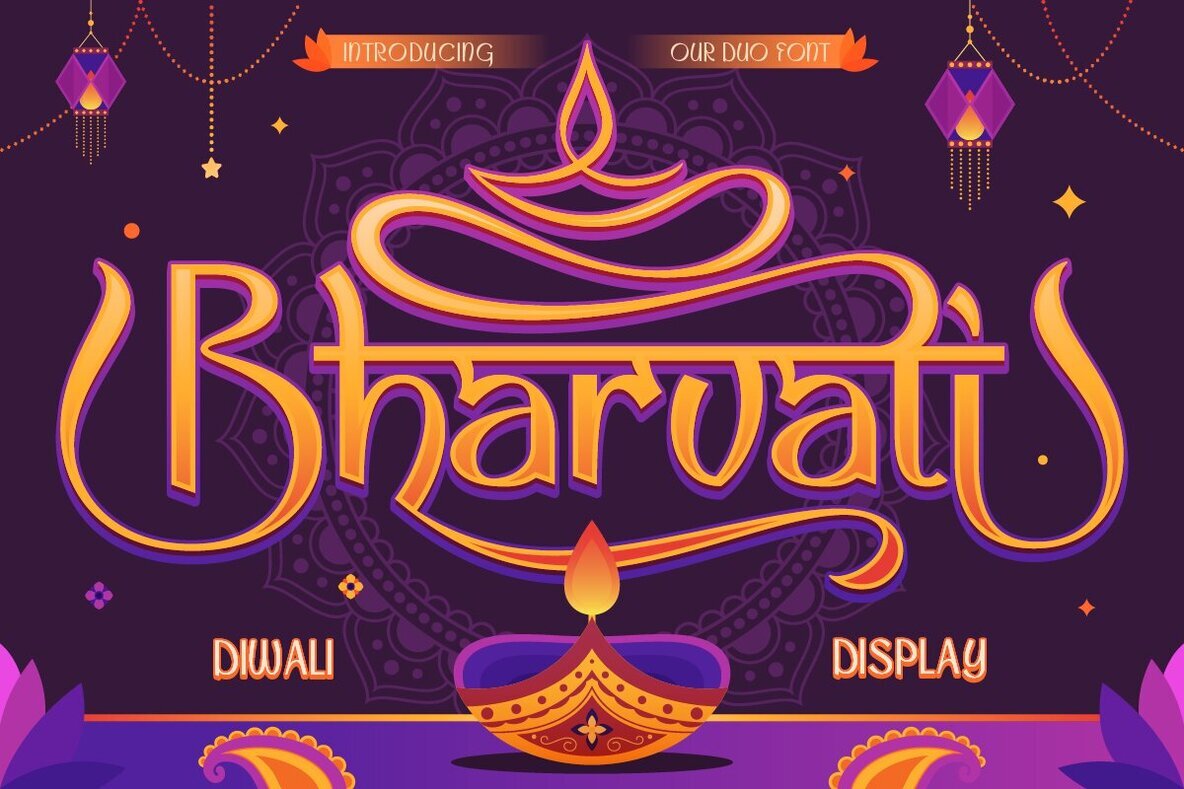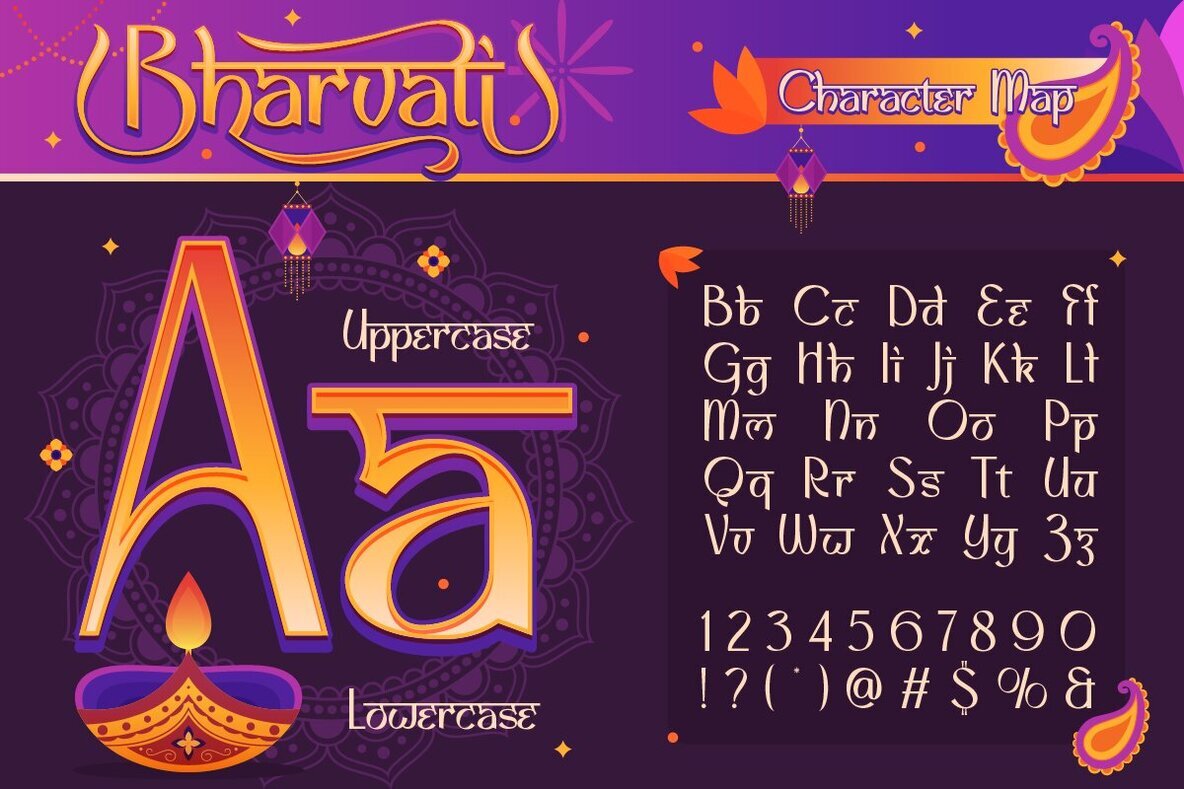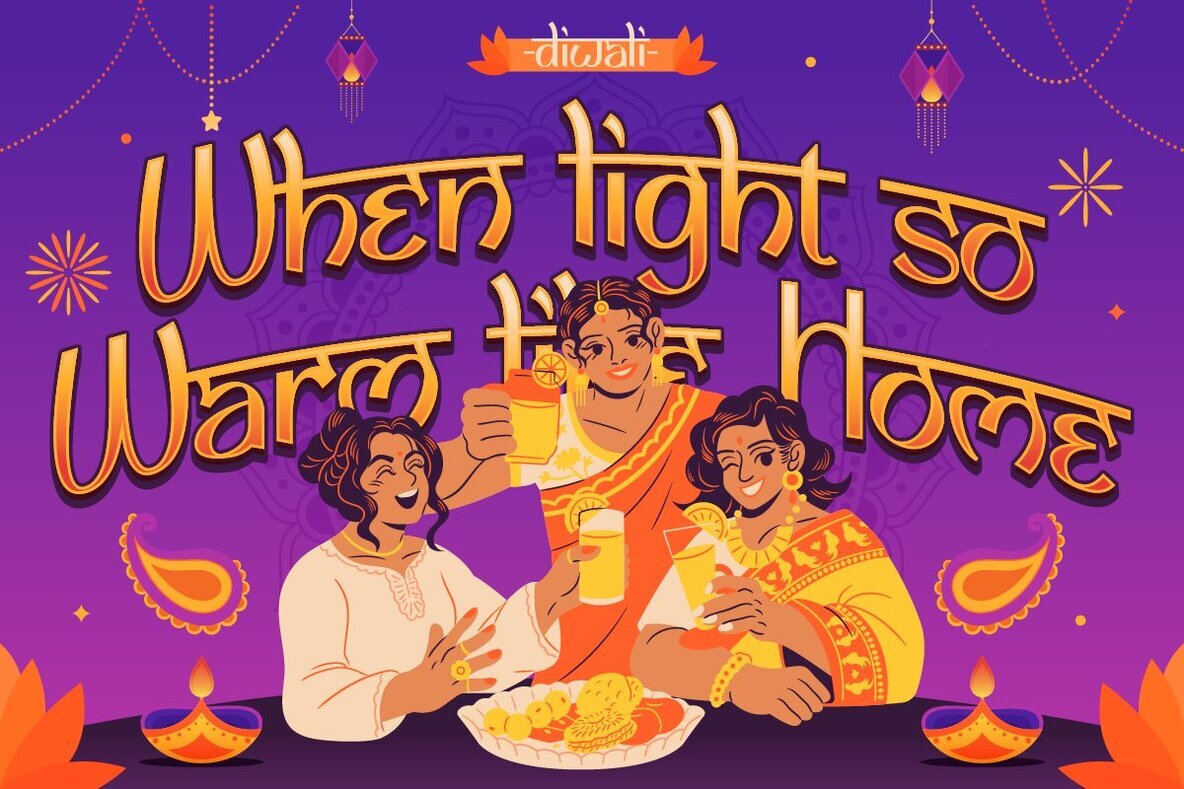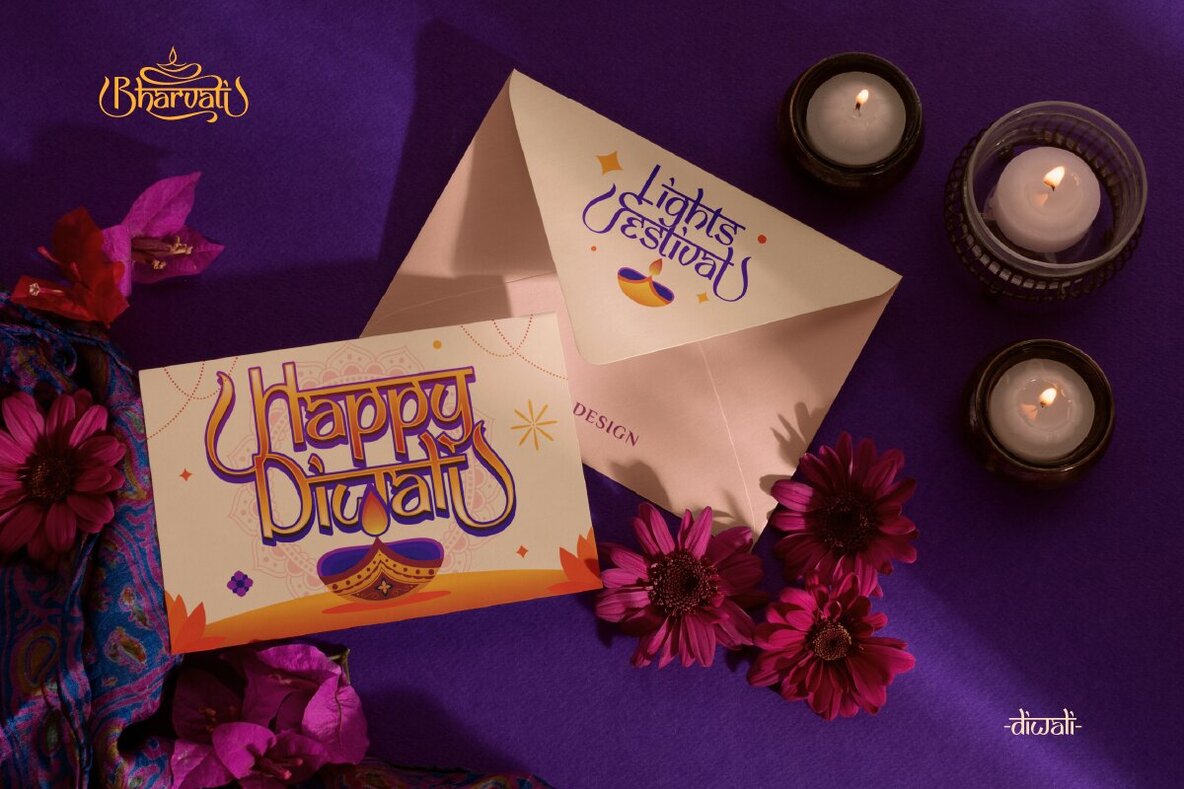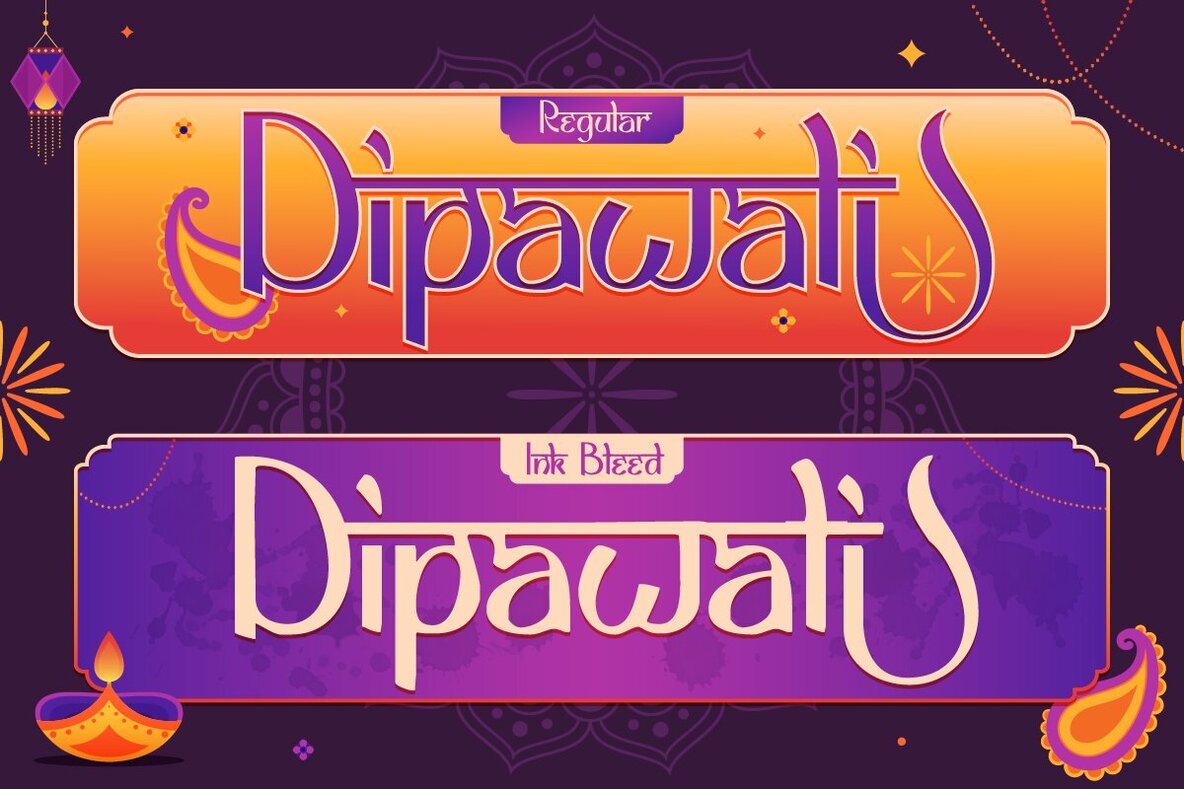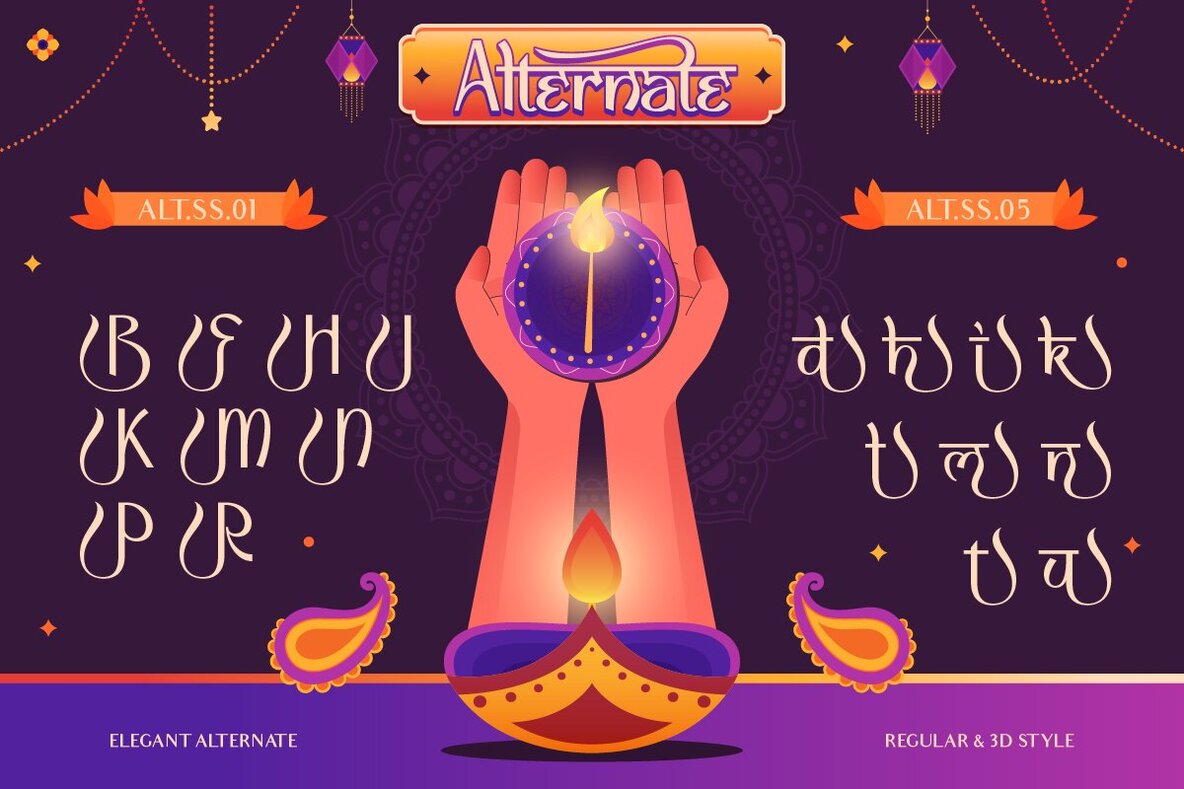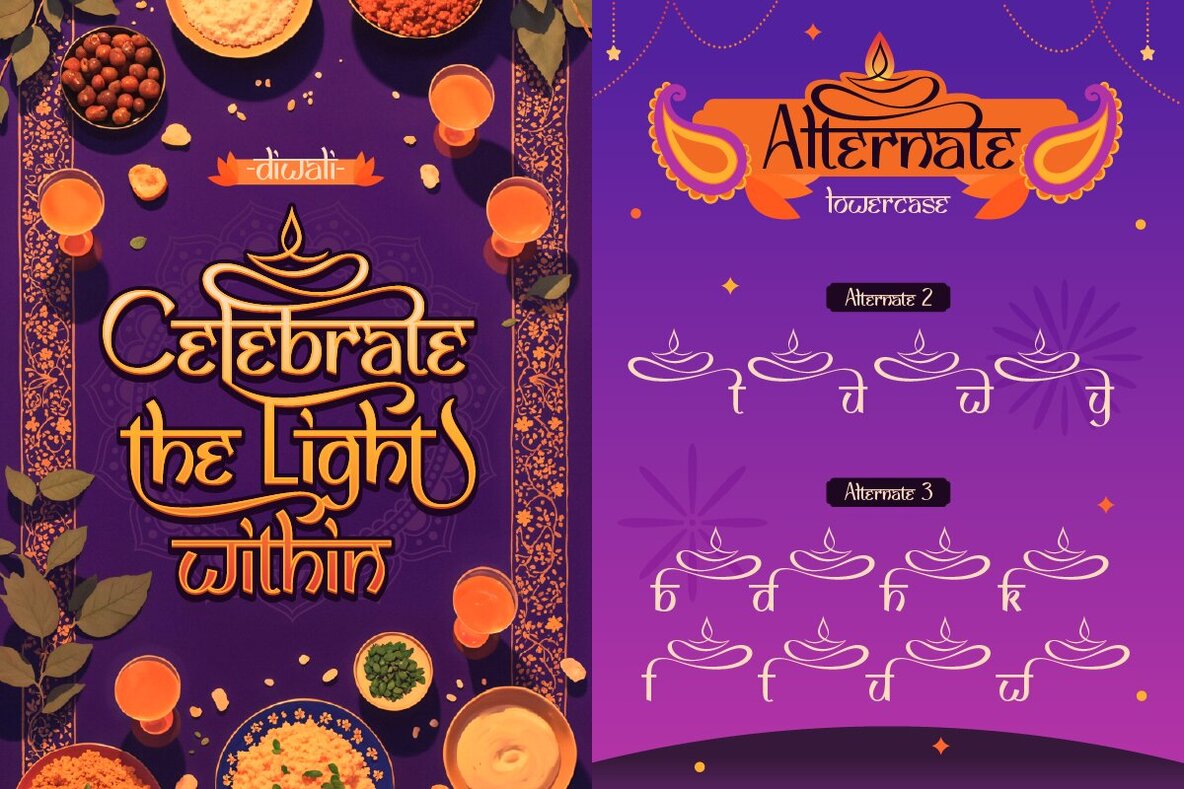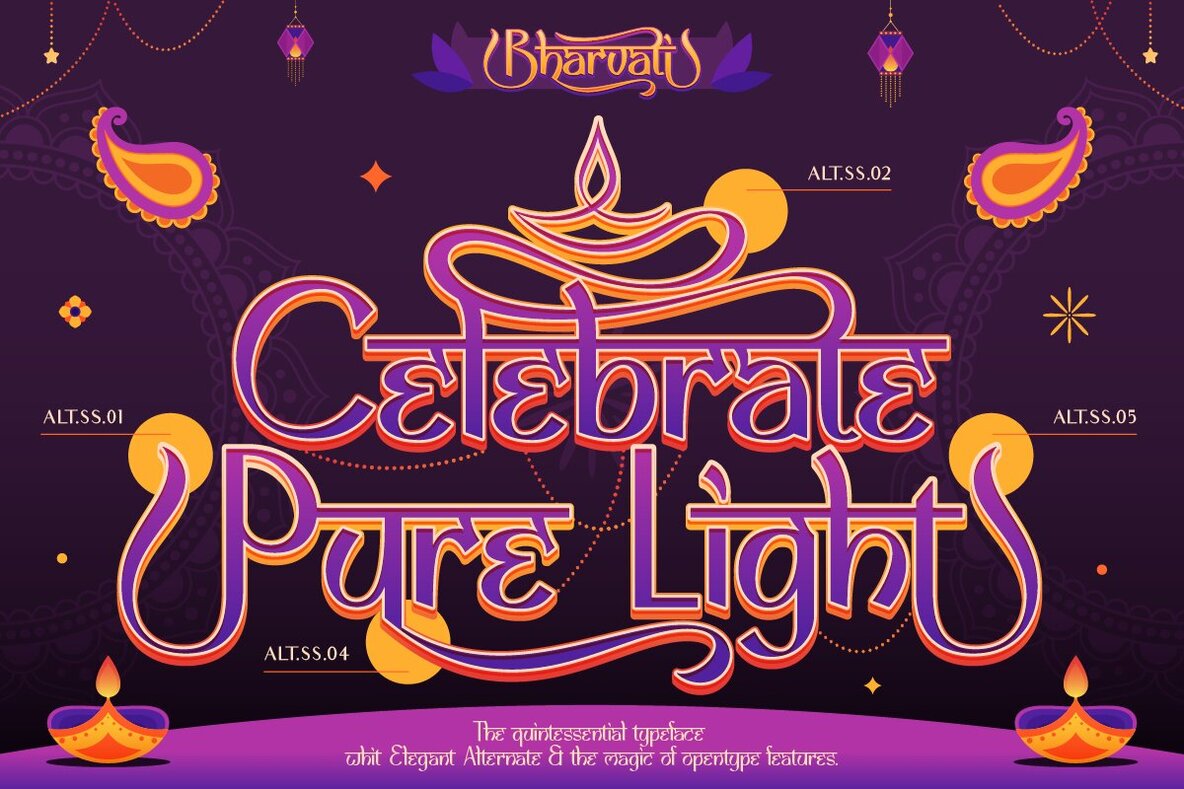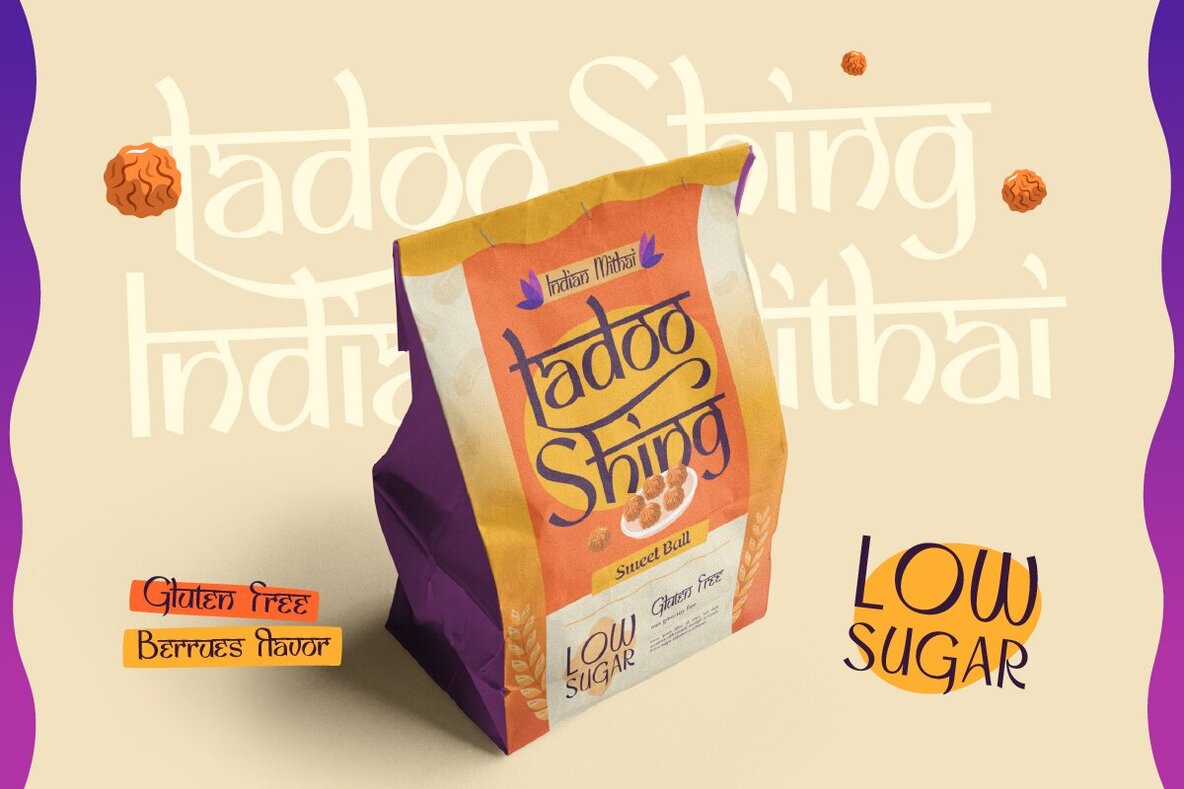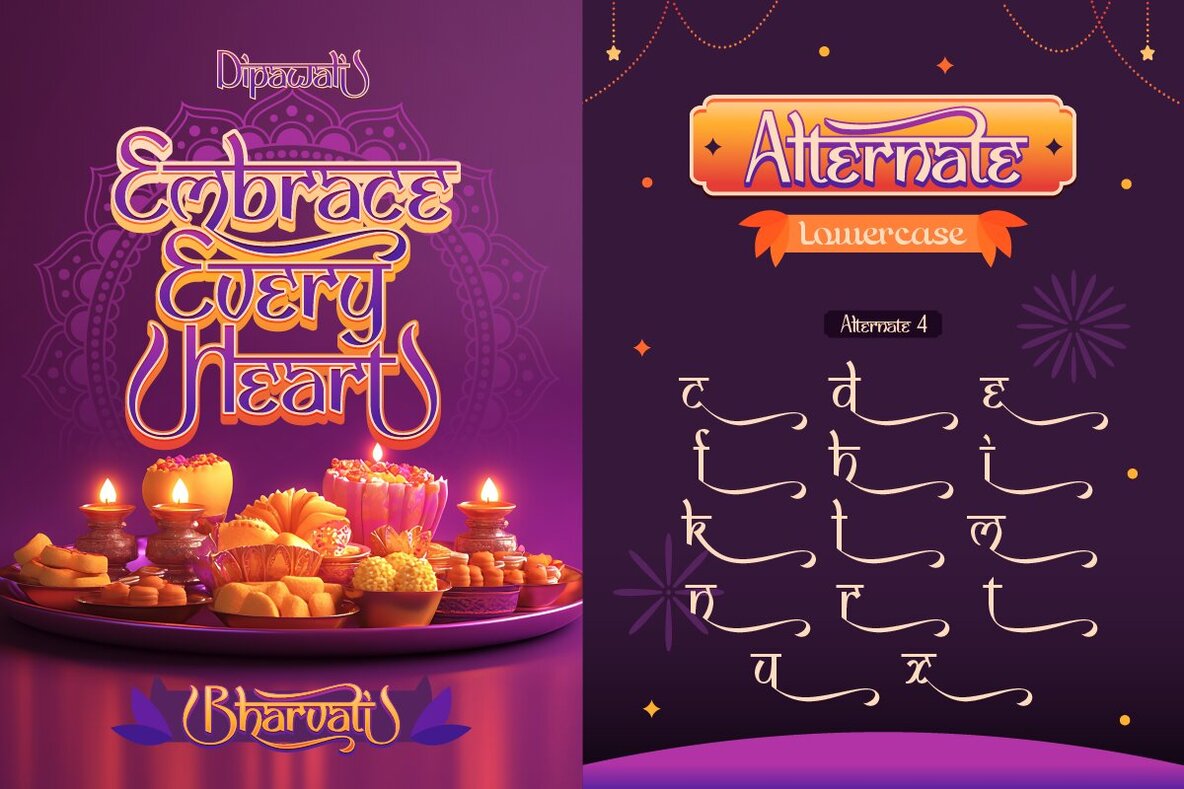
Bharvati Font
Bharvati Regular
Bharvati Ink Bleed
Bharvati is the quintessential Indian-style display font, infused with the lively essence of festive celebrations. Drawing inspiration from the vibrant lights of Diwali, traditional motifs, and graceful curves, this font seamlessly merges cultural allure with contemporary design. Its bold strokes and fluid lines make it an ideal choice for headlines, invitations, and branding projects, adding a distinctive Indian flair to any creative endeavor. Available in two captivating styles, Bharvati offers versatility. The Regular style delivers a clean, polished aesthetic while the Ink Bleed version introduces a handcrafted, artistic touch. Whether crafting festival posters, packaging, social media graphics, or wedding cards, Bharvati promises to illuminate your designs like a festive Diwali diya, infusing them with warmth and cultural richness.Bharvati: Captivating Indian Display Font